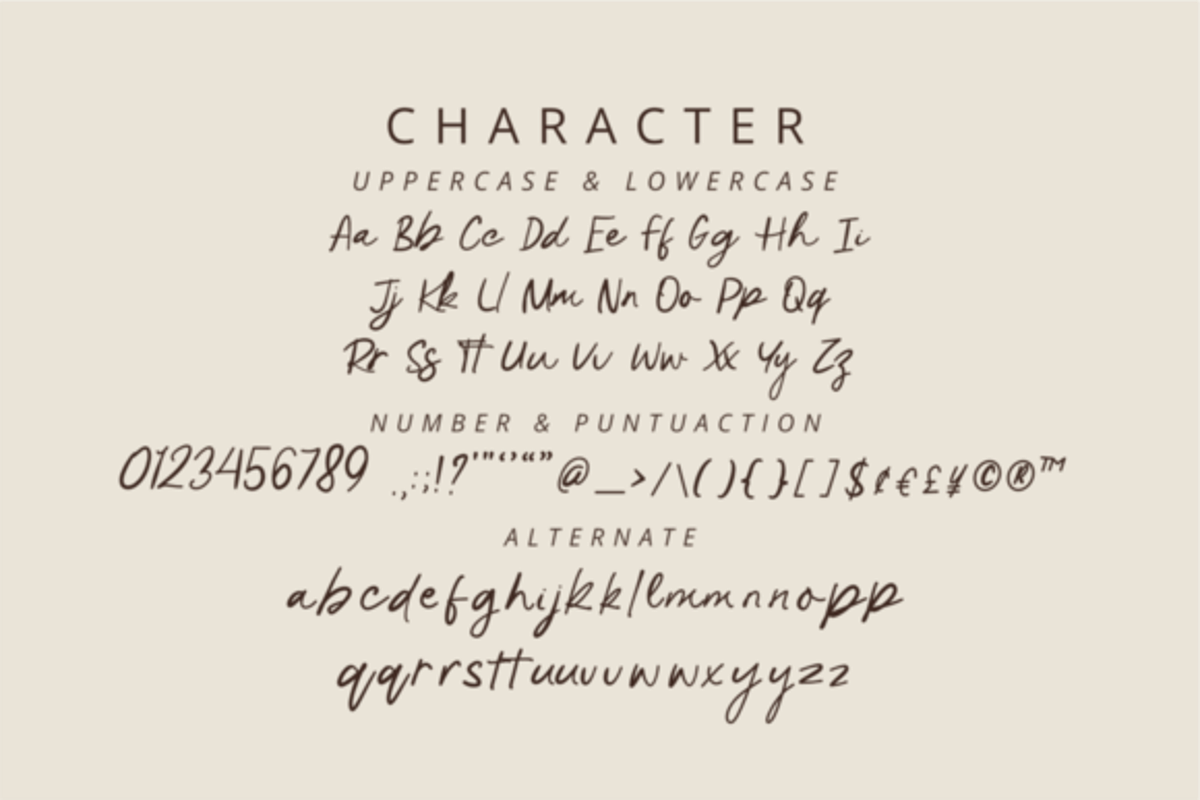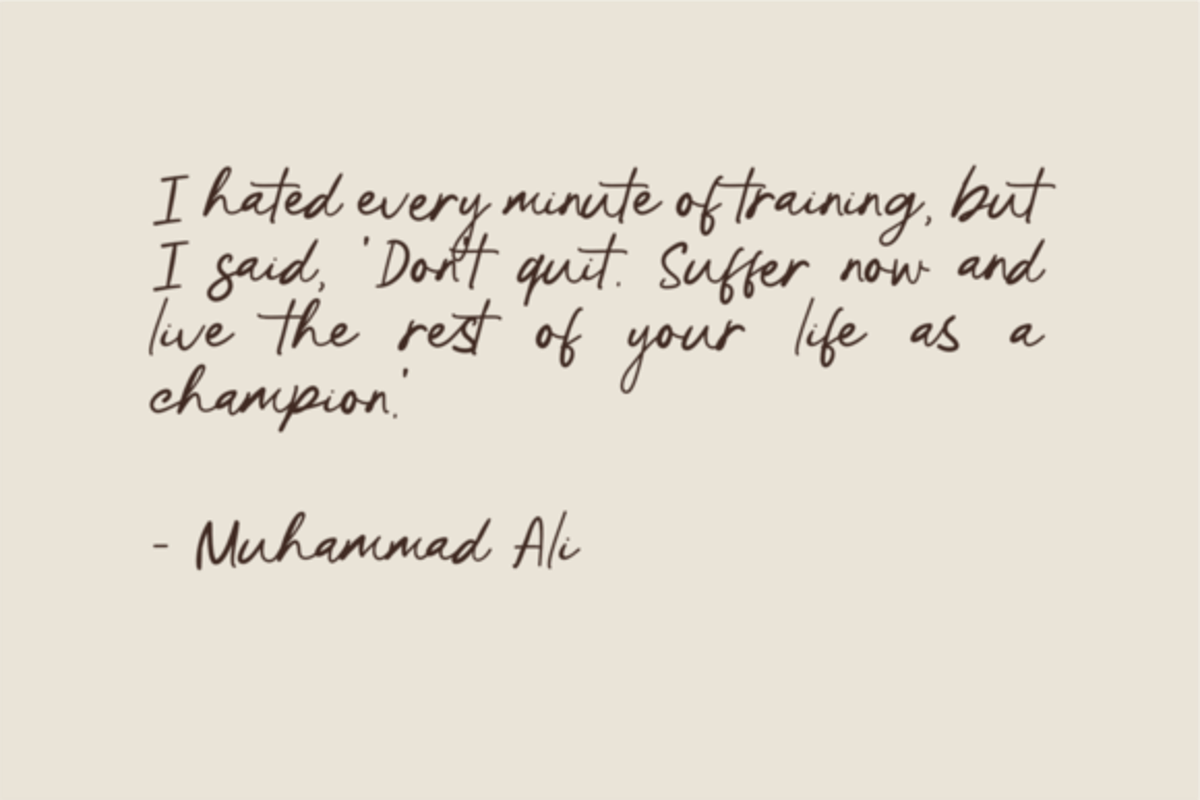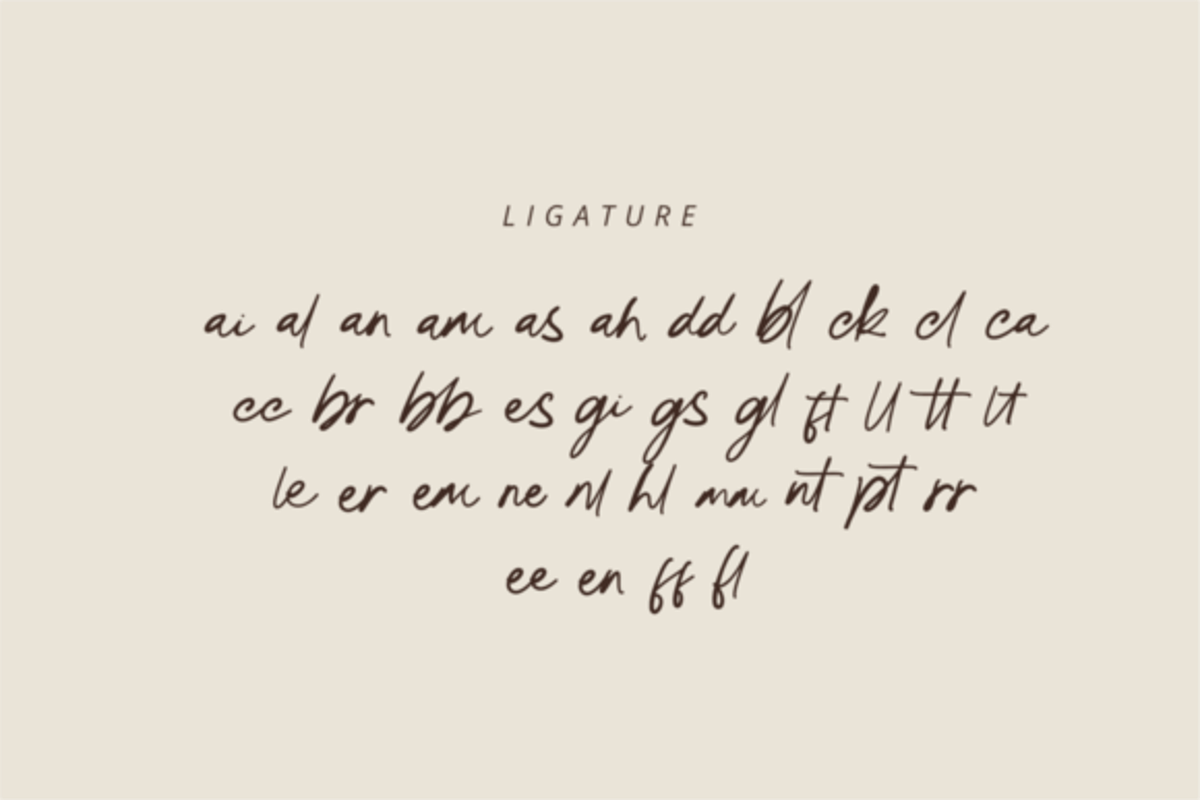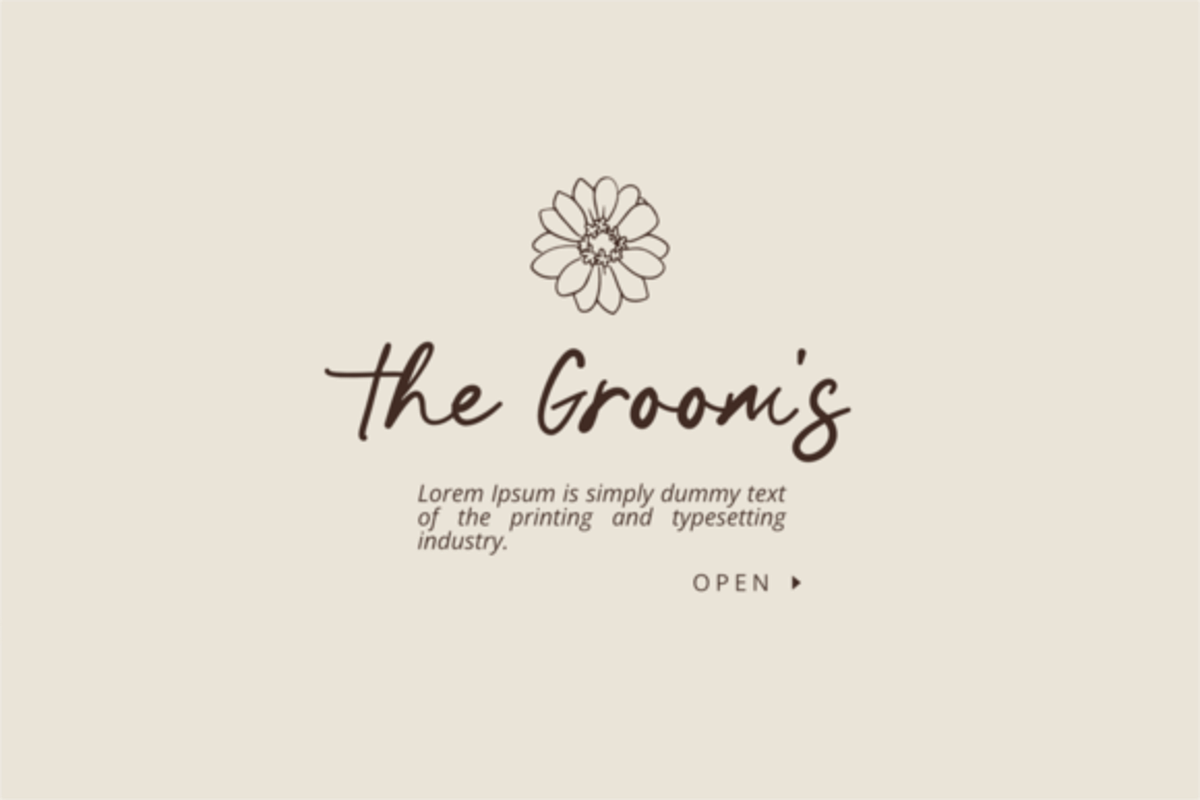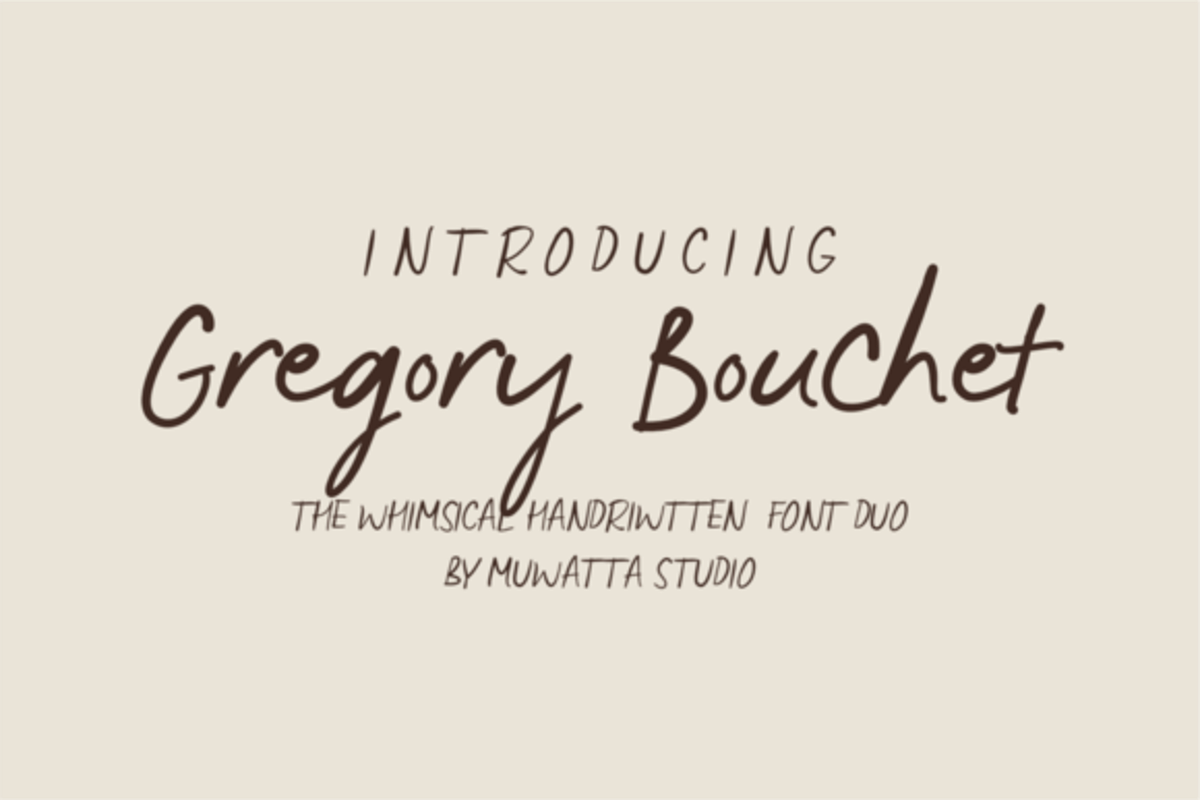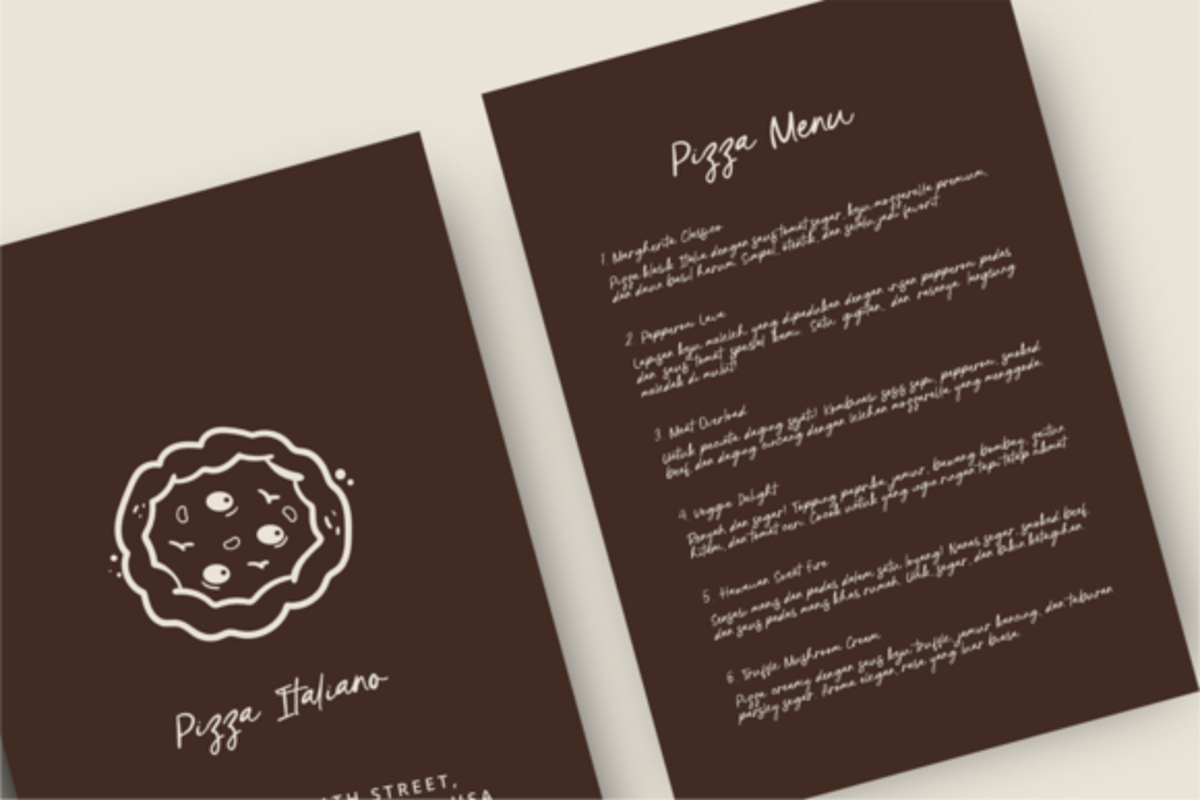
Gregory Bouchet
✨ Gregory Bouchet – Elegant Handcrafted Serif Font
Gregory Bouchet is an exclusive typeface that blends classic elegance with a modern, whimsical touch. Designed specifically for the fashion industry, wedding invitations, and luxury branding, Gregory Bouchet presents a refined yet characterful aesthetic.
With its sleek serifs, graceful curves, and subtle details that accentuate a romantic feel, Gregory Bouchet is an ideal choice for designers seeking to create work full of personality and high style.
✦ Suitable for:
-Fashion & cosmetics branding
-Wedding invitation design
-Editorials & lifestyle magazines
-Logos with premium character
-Artistic quotes & whimsical posters
-Modern classic typography projects
✦ Included in this set:
-Full alphabet with Uppercase and Lowercase A-Z for script
-Alternates Lowercase script
-Ligature Lowercase script
-Multilingual support all fonts